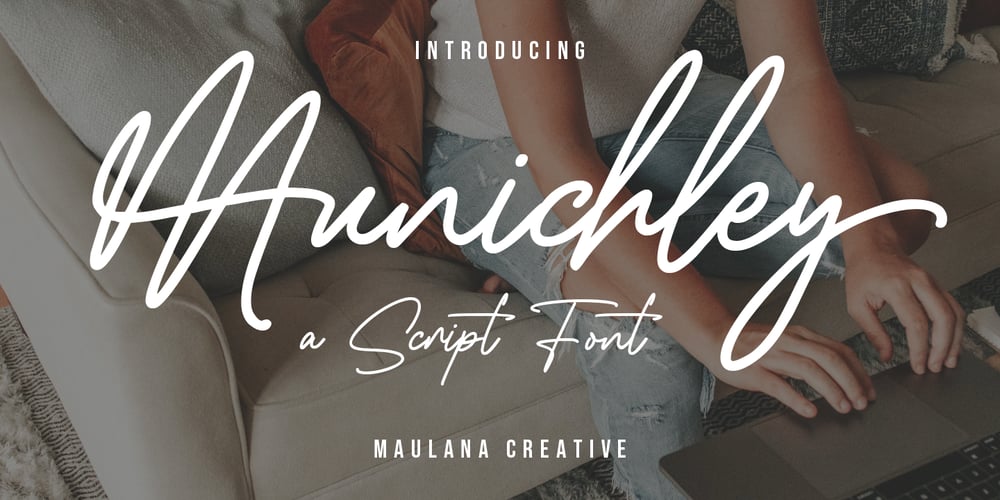
Munichley Font Family was designed by Gilang Maulana and published by Maulana Creative. Munichley contains 1 styles and family package options. Munichley is an expressive casual signature script font. With mono-line consist stroke, fun character with a bit of ligatures and alternates. To give you an extra creative work. Portuis GingerMunichleylogo design, Social media, Movie Titles, Books Titles, a short text even a long text letter and good for your secondary text font with sans or serif. Make a stunning work with Munichley font. Cheers, Maulana Creative